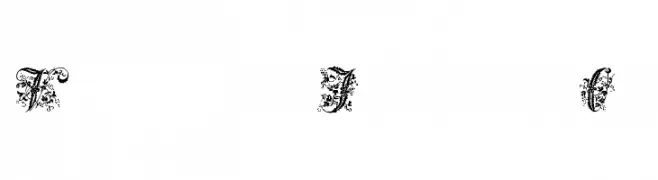
An ornate, decorative font with intricate floral embellishments.
An ornate and decorative font with intricate swirls and embellishments.
Ornate, decorative initials with intricate borders, ideal for elegant designs.
An ornate, decorative font with intricate swirls and embellishments.
An ornate, Gothic-inspired font with elaborate curls and high contrast.
An ornate, decorative font with intricate floral patterns in each letter.
An ornate and decorative font with intricate patterns and swirls.
Ornate decorative initials with acorn and foliage designs.
An ornate and decorative font with Victorian elegance.